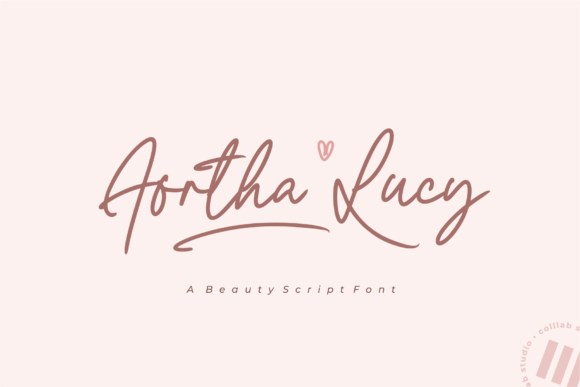
Step into a world of timeless elegance with Aortha Lucy, a script font that breathes life into your creative endeavors. Its delicate strokes and graceful curves infuse your designs with a touch of sophistication, while its flowing nature adds a sense of fluidity and movement.
Experience the beauty of balance and harmony as Aortha Lucy's well-crafted characters dance across your screen. Each letterform is meticulously designed to complement the next, creating a cohesive and visually appealing aesthetic. Whether you're crafting eye-catching logos, heartfelt invitations, or stunning social media posts, this font will elevate your designs to new heights.
Aortha Lucy's versatility knows no bounds, making it the perfect choice for a wide range of projects. Its elegant charm lends a touch of refinement to wedding invitations, while its playful personality shines through in whimsical posters and flyers. Unleash your creativity and let Aortha Lucy transform your ideas into captivating works of art.
Immerse yourself in a world of endless possibilities with Aortha Lucy's extensive glyphs and swashes, accessible with ease through PUA encoding. Explore a diverse range of stylistic alternatives and unleash your imagination as you craft designs that stand out from the crowd.
Join the countless designers who have succumbed to the allure of Aortha Lucy, a font that has captured the hearts of creatives worldwide. Embrace its timeless beauty and experience the joy of creating designs that captivate and inspire.